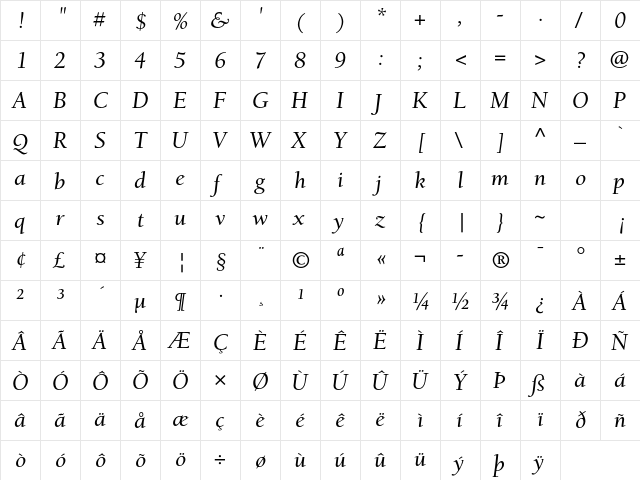
ITC Berkeley Oldstyle Std Italic Font Preview
ITC Berkeley Oldstyle Std Italic
ITC Berkeley Oldstyle Std Italic Font Details
| Designer | Frederic W. Goudy |
Design Context for ITC Berkeley Oldstyle Std Typeface
ITC Berkeley Oldstyle Std carries the refined structure of traditional serif typography, with bracketed terminals and considered proportions that communicate credibility and craft. The slanted form adds forward momentum and visual energy.
Pro Tip: Set ITC Berkeley Oldstyle Std with slightly loose tracking in headlines to let each letterform's detail read clearly at display sizes.